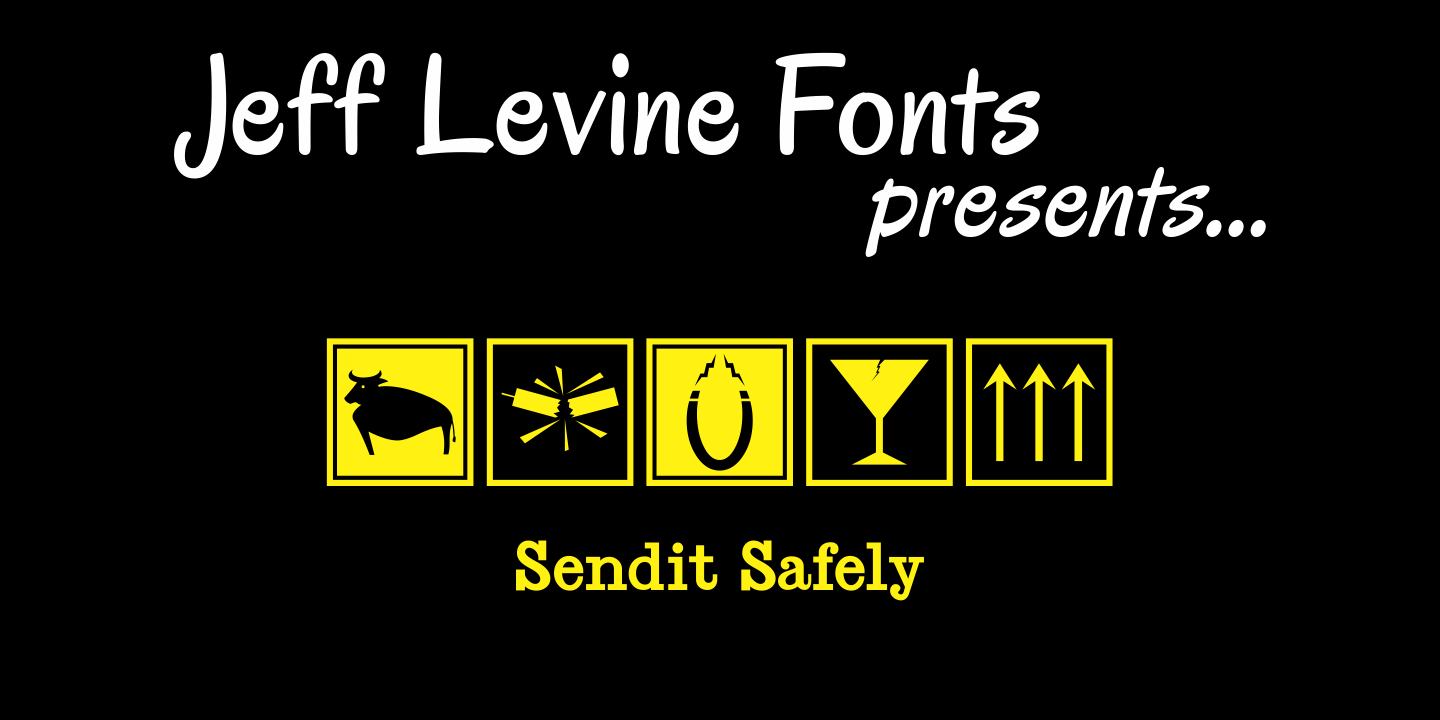
Sendit Safely
Sendit Safely JNL is a collection of twenty-five universal shipping symbols for labels that ensure the proper handling of packages in transit. There are two variations of each symbol and blank label frame. Also included is a circle with a slash and an "X" for labels indicating 'don't' or 'no'.
Sendit Safely JNL Regular by Jeff Levine Fonts